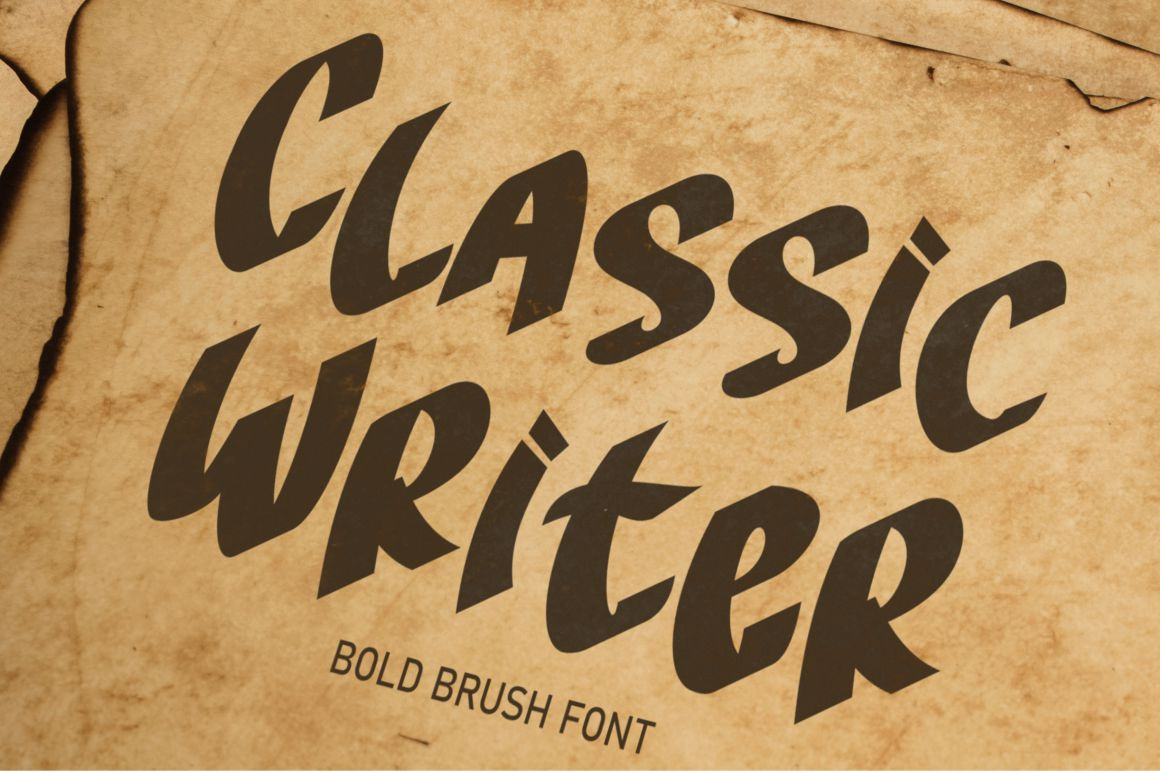
Classic Writer - Bold Brush Font
Classic Writer - Bold Brush Font. Take your design with the "Classic Writer" to the next level with a bold, thick and expressive font that truly looks hand painted. Classic Writer uses authentic looking fonts and is sure to grab the attention of customers and designers alike.
You can use this font for various purposes such us story books, illustrations, comic books, t-shirts, posters, greeting cards, logos, branding, stickers, svg, crafting and all for display purposes.